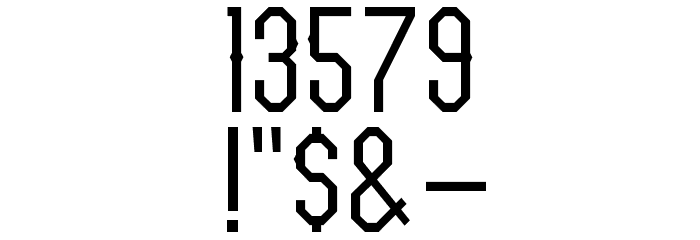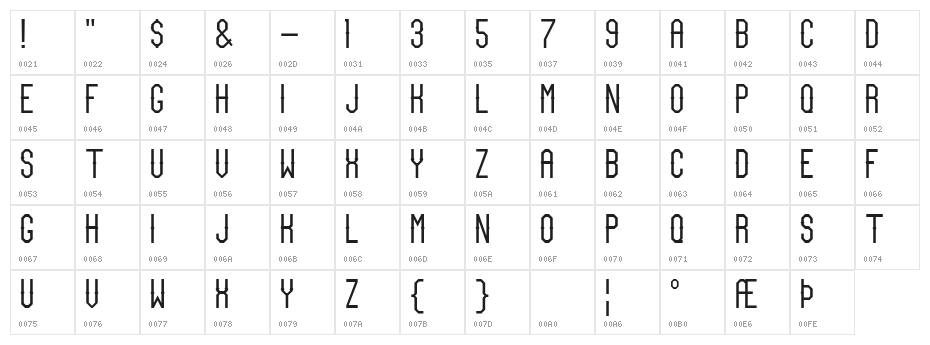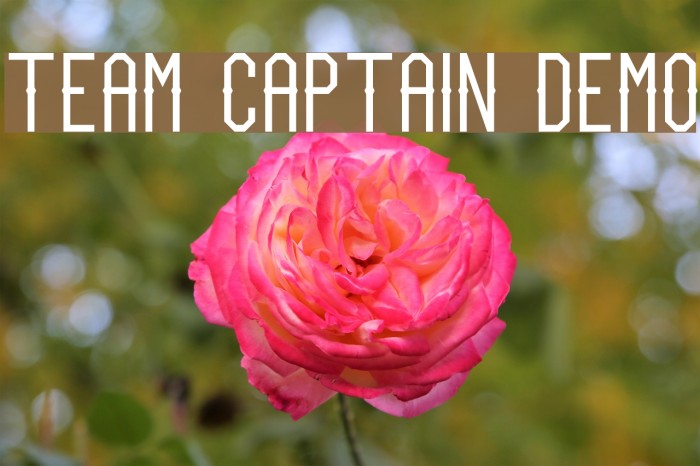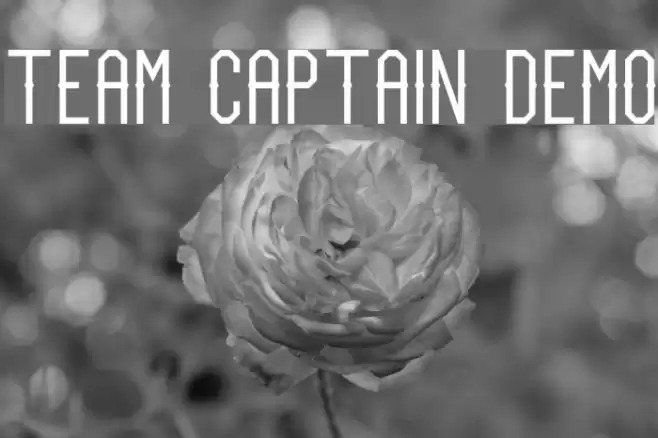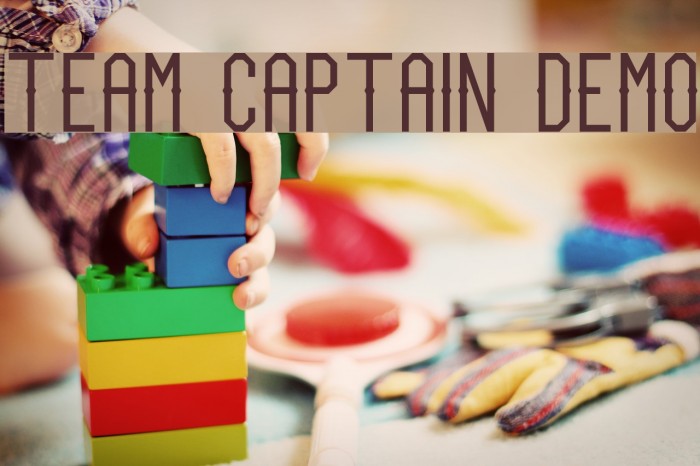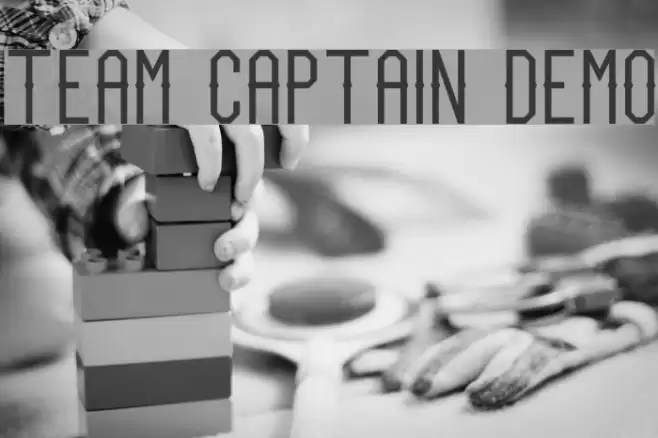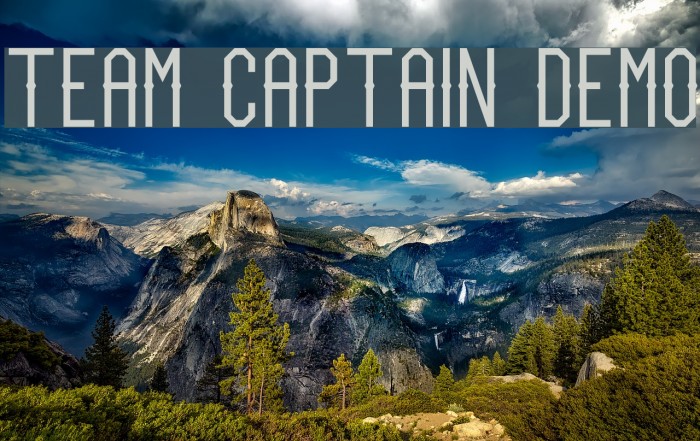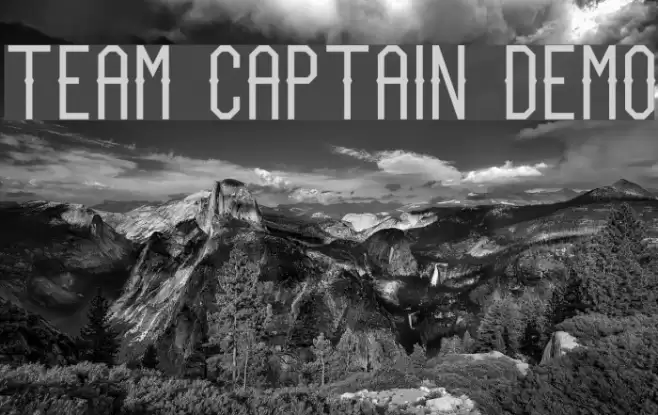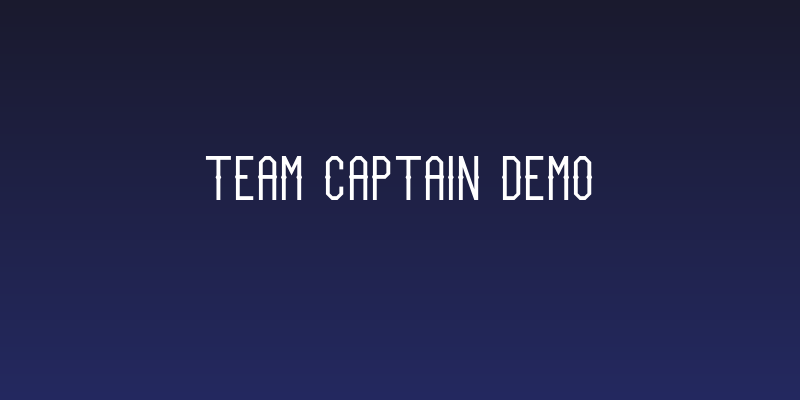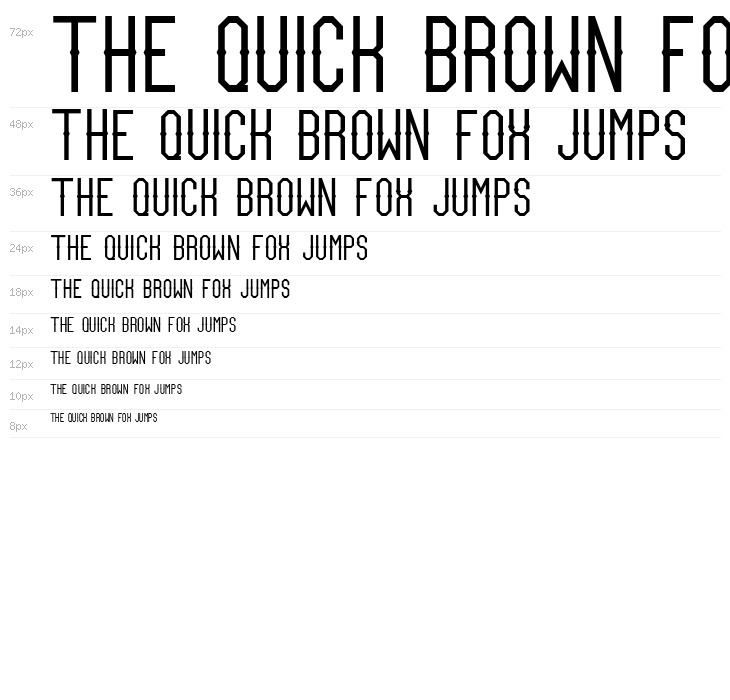
Team Captain Demo Font
Team Captain Demo Description
This font features a unique, geometric design with a modern twist. The characters are composed of straight lines and sharp angles, giving it a futuristic and industrial feel. The uppercase and lowercase letters maintain a consistent height, creating a uniform appearance. The numbers and special characters follow the same design principles, ensuring cohesion across all elements. The font's structure is bold and striking, making it ideal for attention-grabbing designs. Its distinct style is perfect for projects that require a modern and edgy look.
| Proposed Projects | Ideal for branding, posters, and digital media that require a modern and edgy aesthetic. |